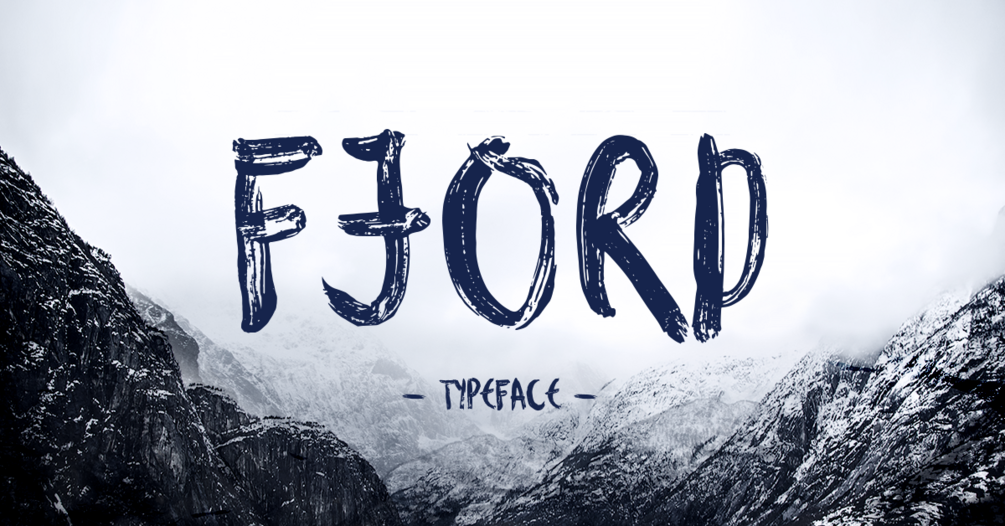
Fjord Brush Font Extended
Fjord brush font was made by the painter Krisjanis Mezulis, and it was inspired by the amazing natural landscapes of the fjords in Norway. You have to go there! The font was drawn with a thick brush on plastic, so was the liquid and distorted look made. All pictures are taken by Krisjanis and are copyrighted.